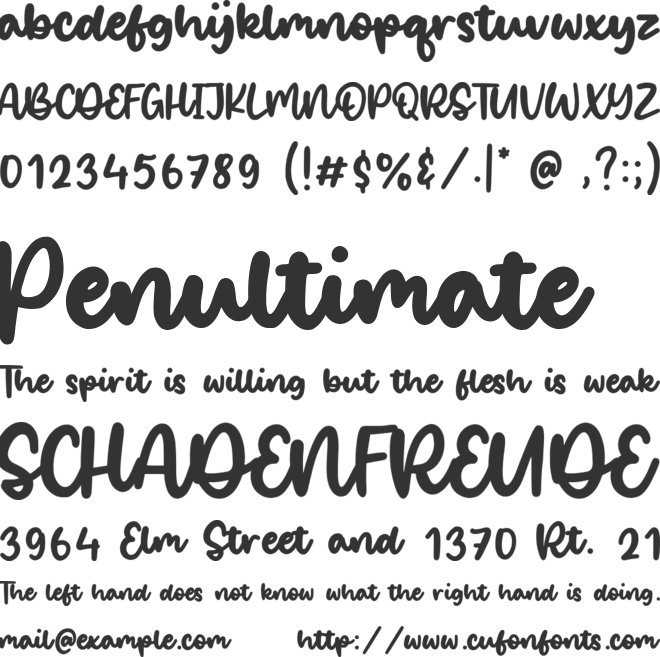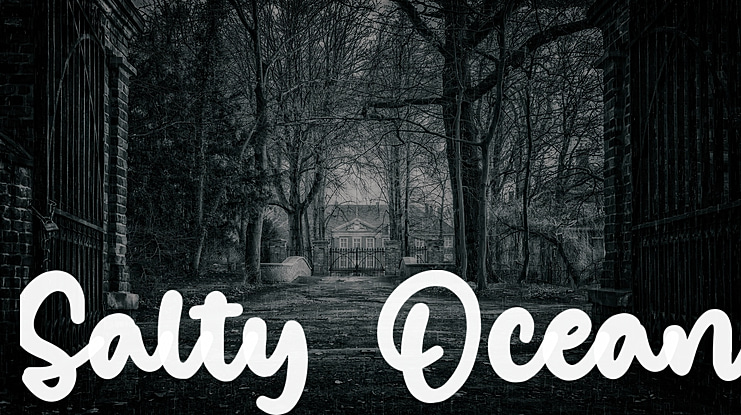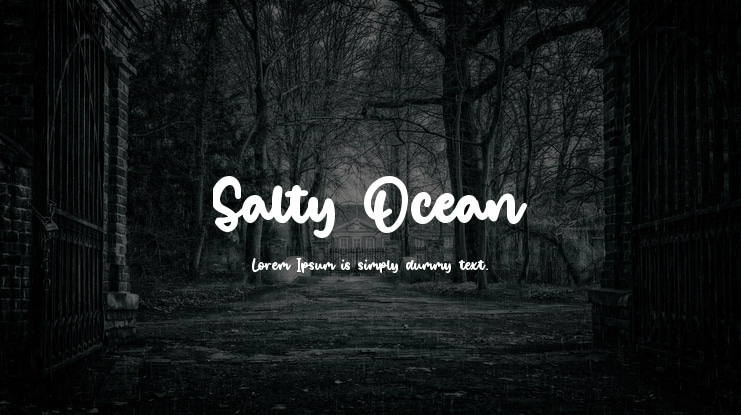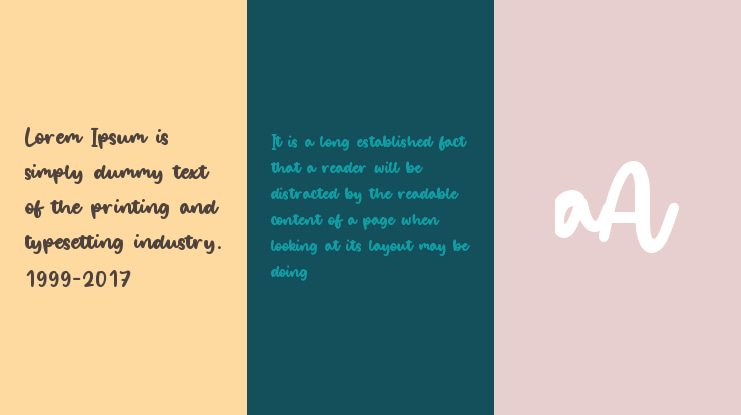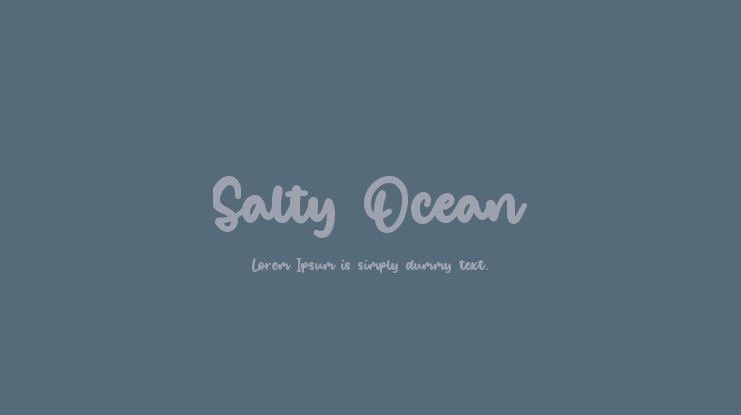
Salty Ocean Font
Balpirick Studio
Proudly Present, Salty Ocean Font.
Salty Ocean is a Bold Brushed Handdraw Font.
Salty Ocean is perfect for product packaging, branding project, megazine, social media, wedding, or just used to express words above the background.
Salty Ocean font preview